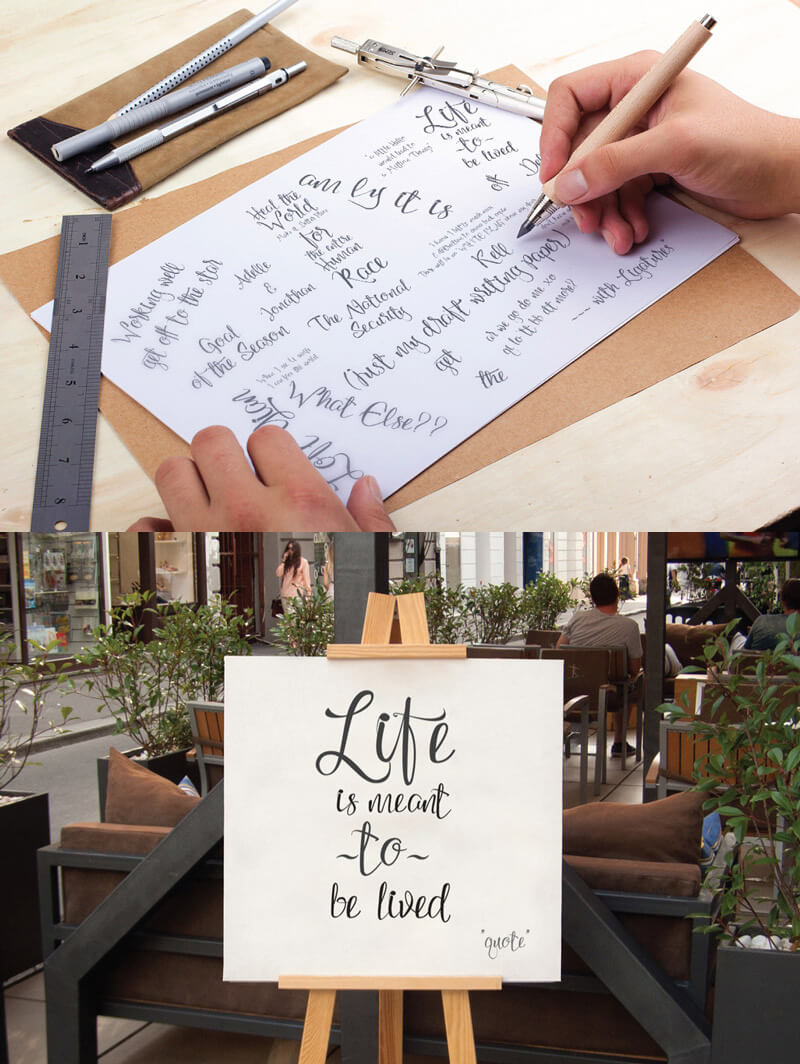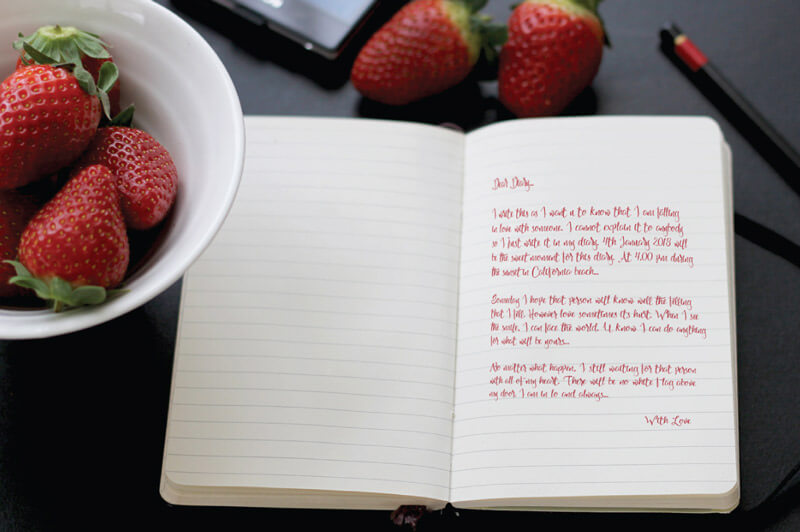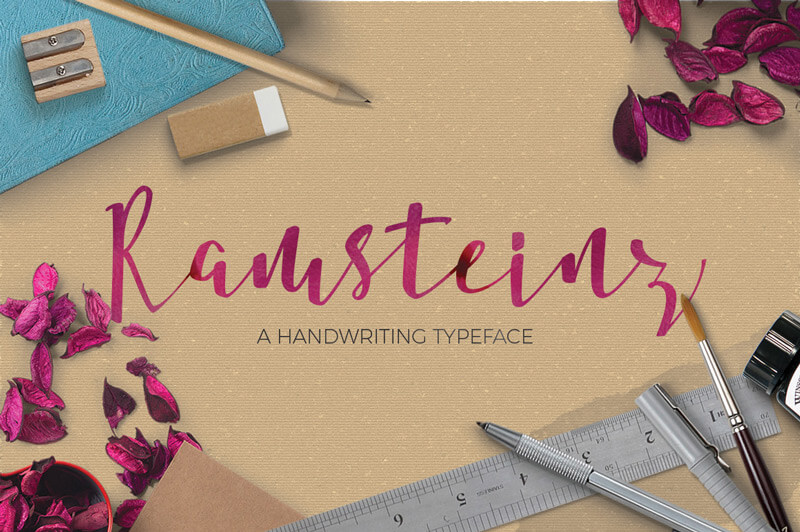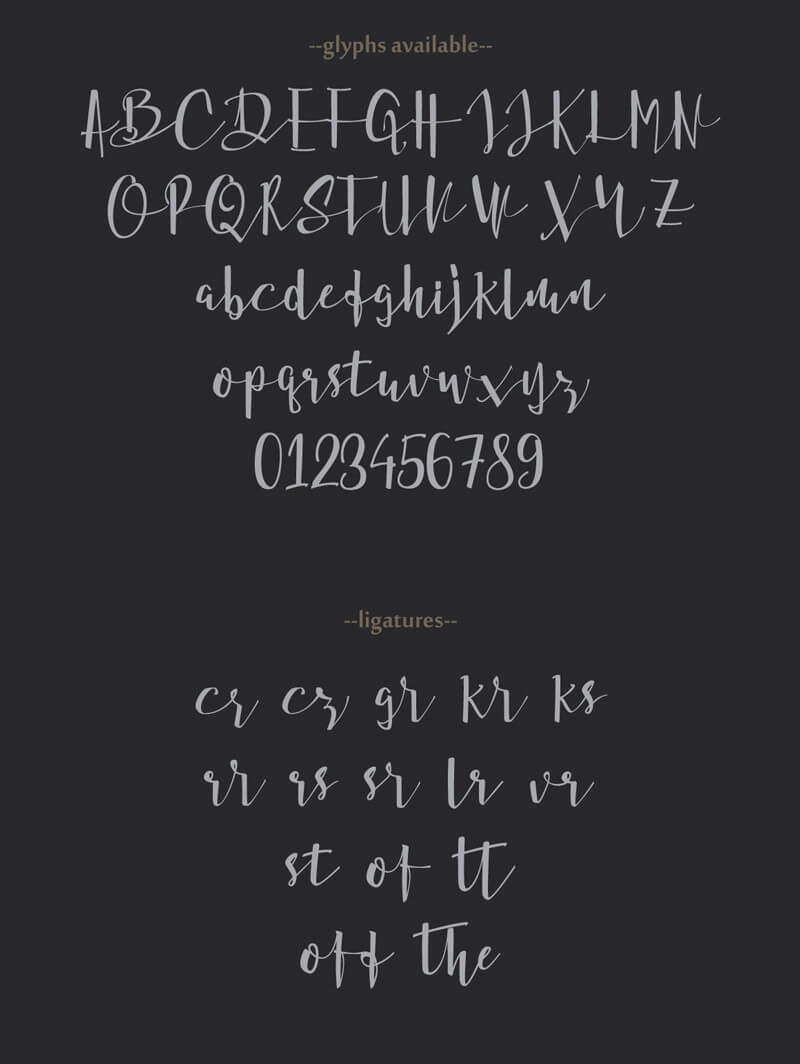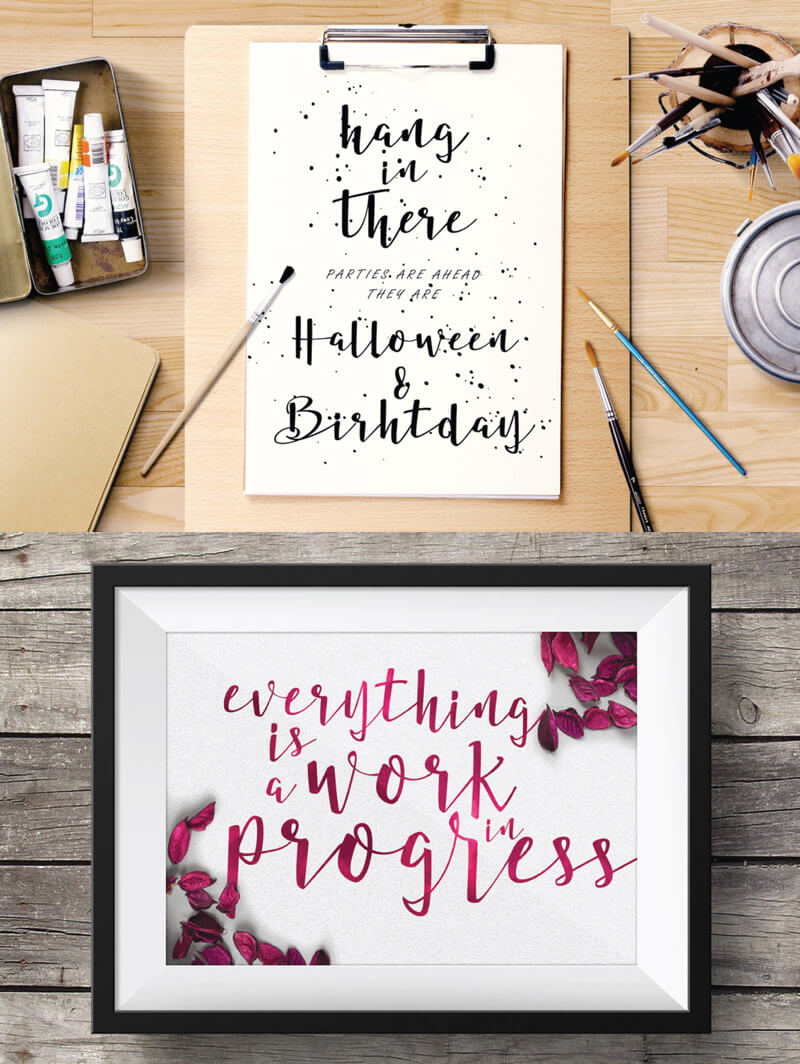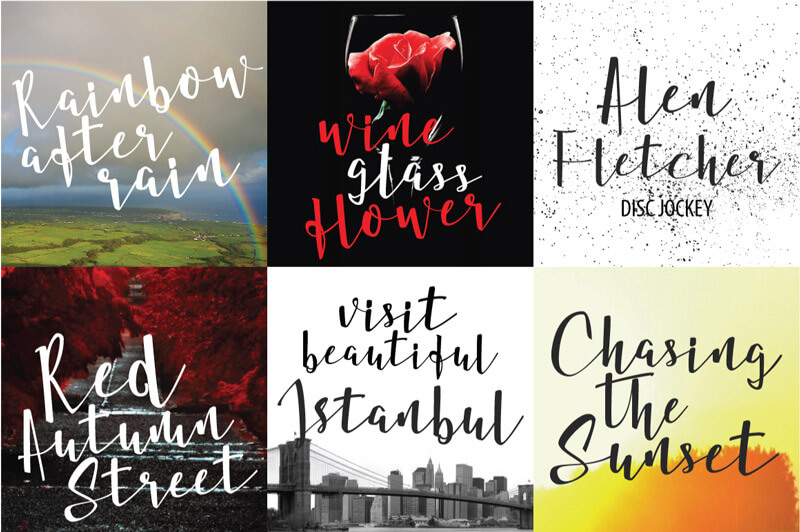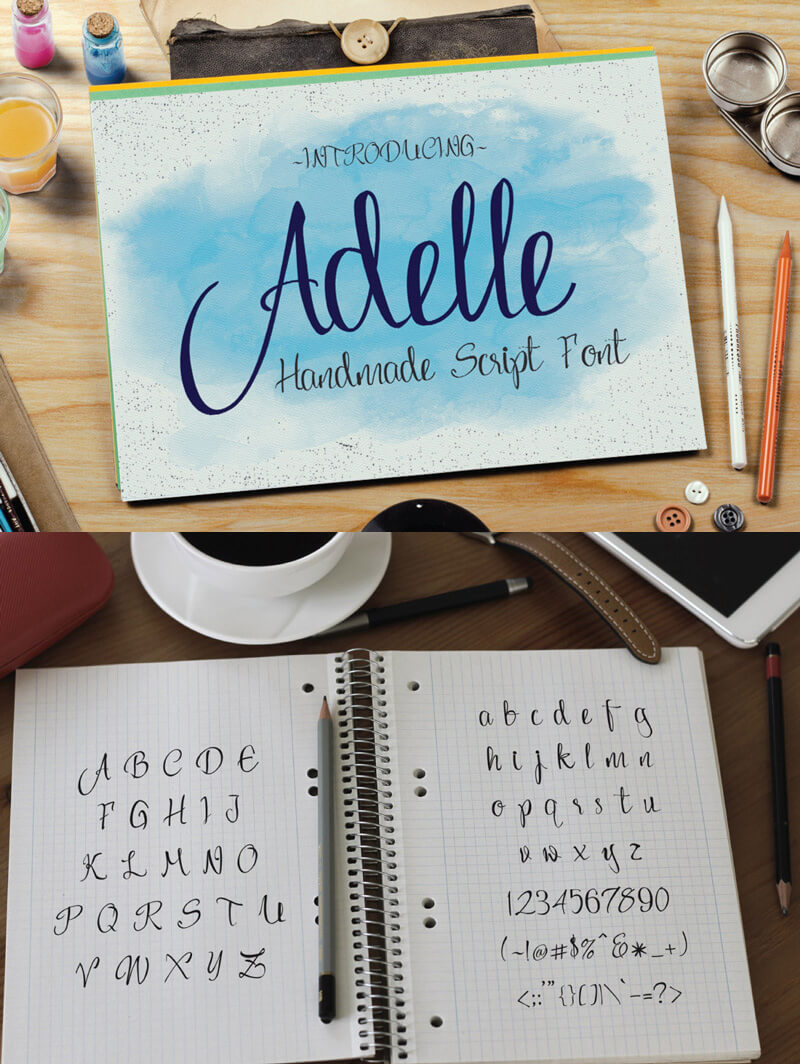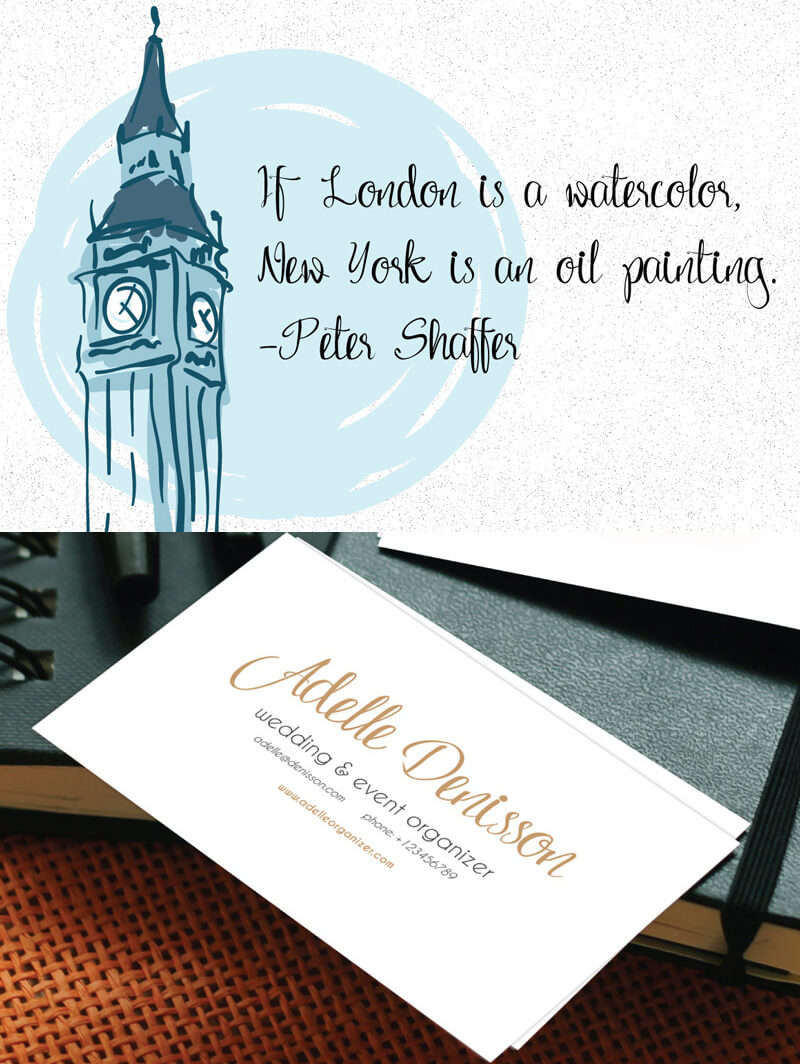
The Tastiest Bundle 15 Awesome Font
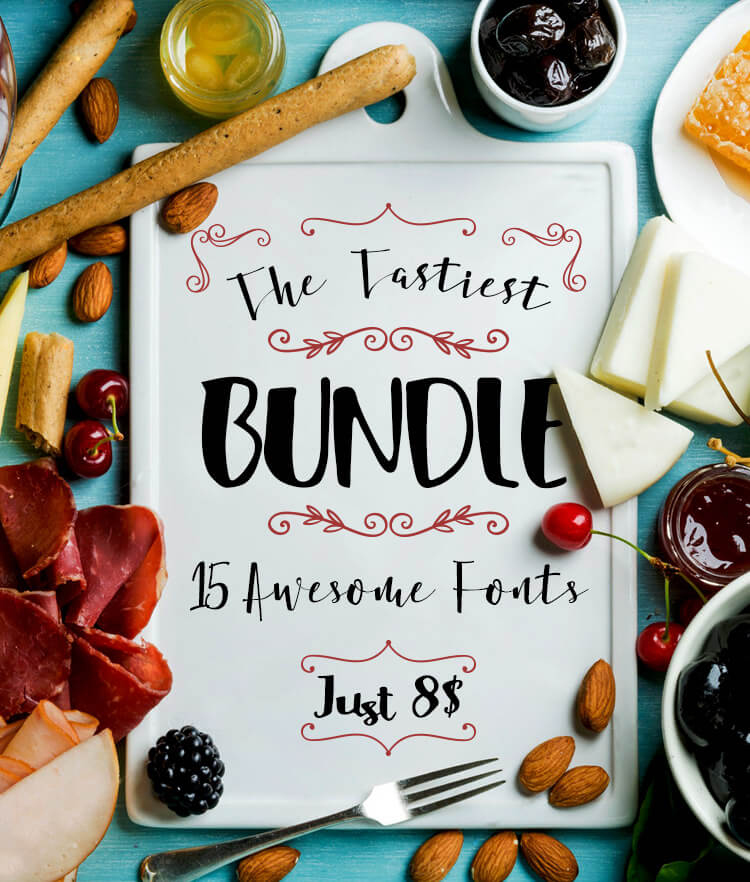
Elevate your creative projects with The Tastiest Bundle: 15 awesome font bundle deals! This collection offers an exceptional touch for any design. GraphicLoot and FONT GRAPHIC LAND proudly present this incredible package. You’ll find high-quality, handmade script fonts. They are incredibly versatile. Use them for almost anything your imagination can conjure. This awesome font bundle is perfect for home decorations. Create unique t-shirt designs. Design eye-catching logos. Craft appealing restaurant menus. Make charming bakery labels. This is a fantastic opportunity to expand your font library. Get it at a huge discount! Don’t miss out on this amazing offer.
Unlock Your Creativity with This Awesome Font Bundle
This Tastiest Bundle is more than just a collection of fonts. It’s a gateway to enhanced creativity. Each font is crafted with care. They bring a unique, handmade feel to your work. Imagine the possibilities for your next project. Whether you’re a seasoned designer or just starting, these fonts will impress. They are ideal for adding personality. They make designs stand out. Explore the full potential of typography. This awesome font bundle provides the tools you need.
The versatility of these fonts is remarkable. They adapt to various styles and themes. You can use them for branding. They are great for marketing materials. Personal projects also benefit greatly. Think about custom invitations. Consider personalized gifts. The options are truly endless. This bundle ensures you have the right font for every occasion. It’s a smart investment for any designer.
The fonts included are:
• Loft Yian Handwriting TypeFace
• Ramsteinz TypeFace
• Adelle Script Handwriting TypeFace
• Glytten Script TypeFace
• Rose Wine Handwriting TypeFace
• HelloListie Handmade Script Type